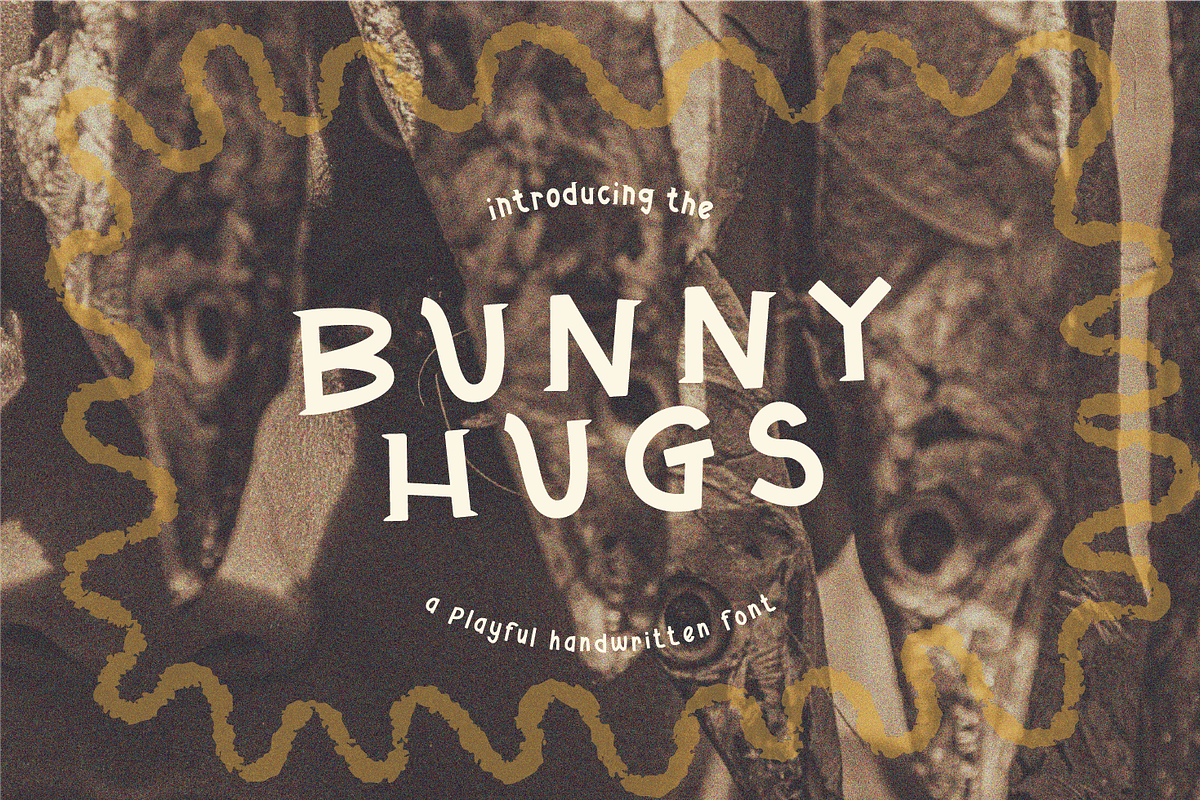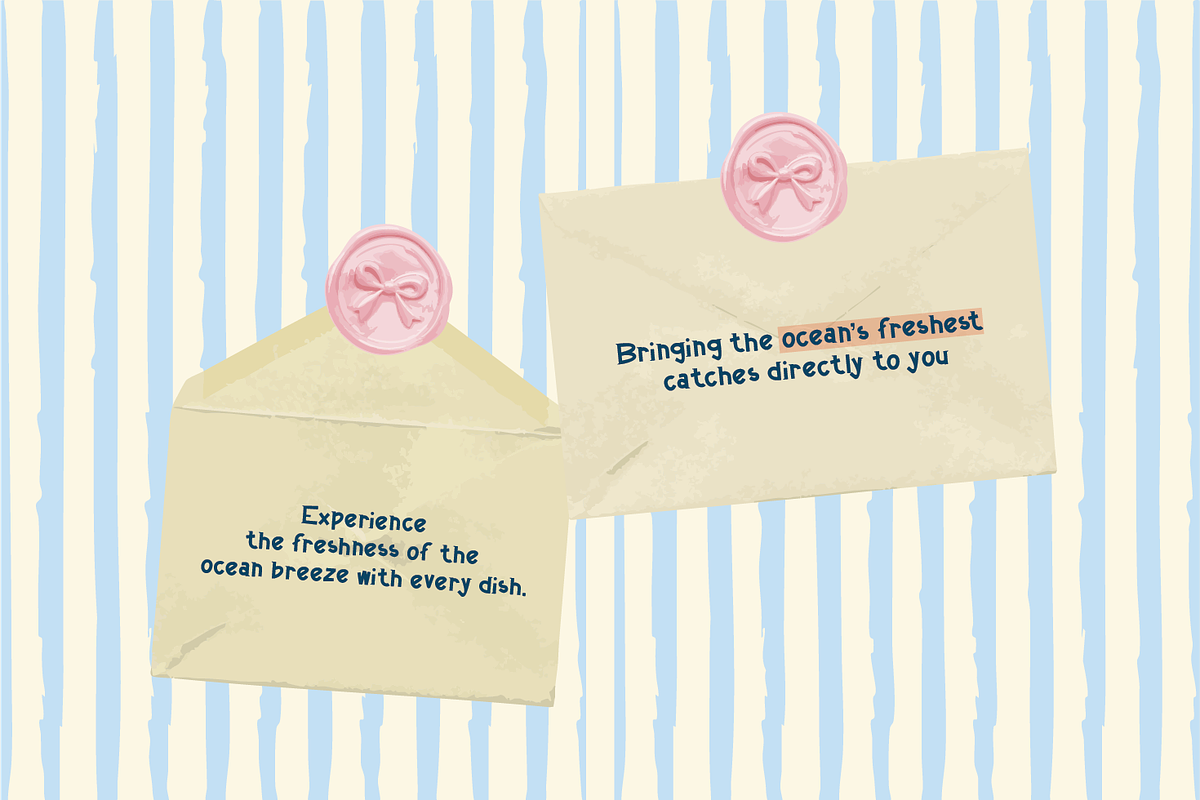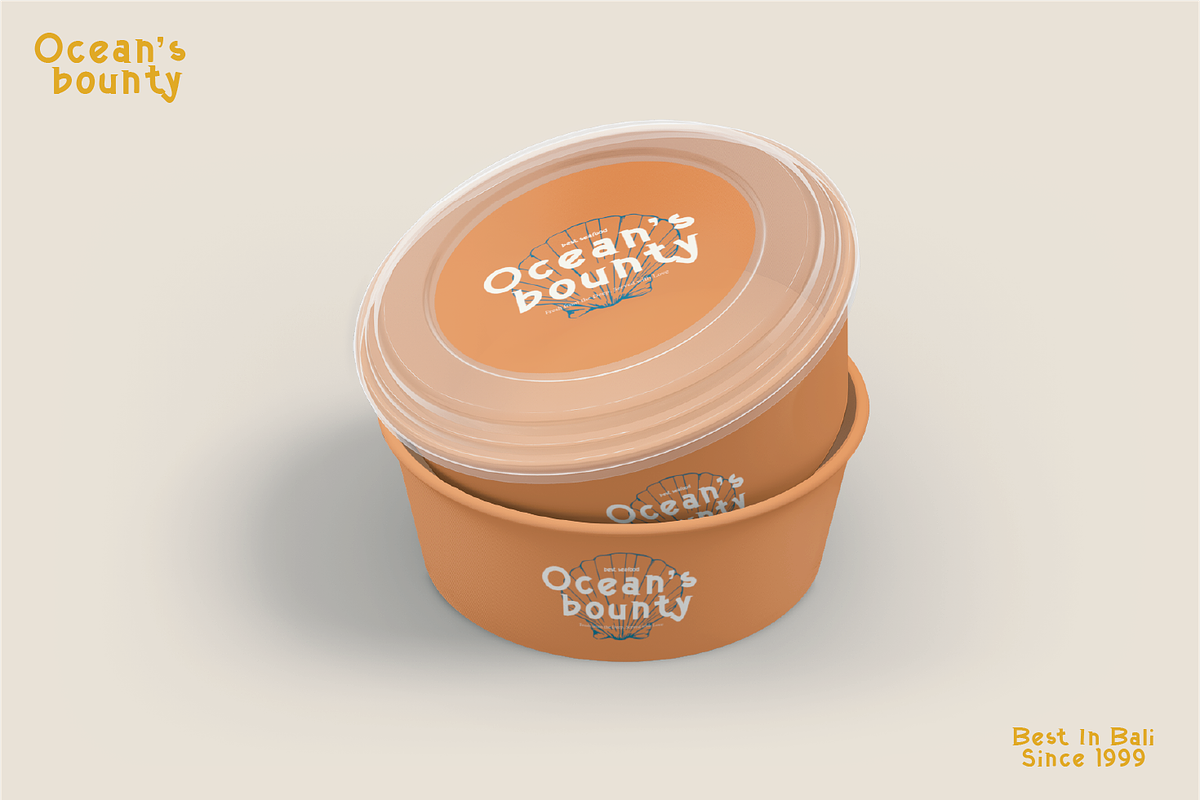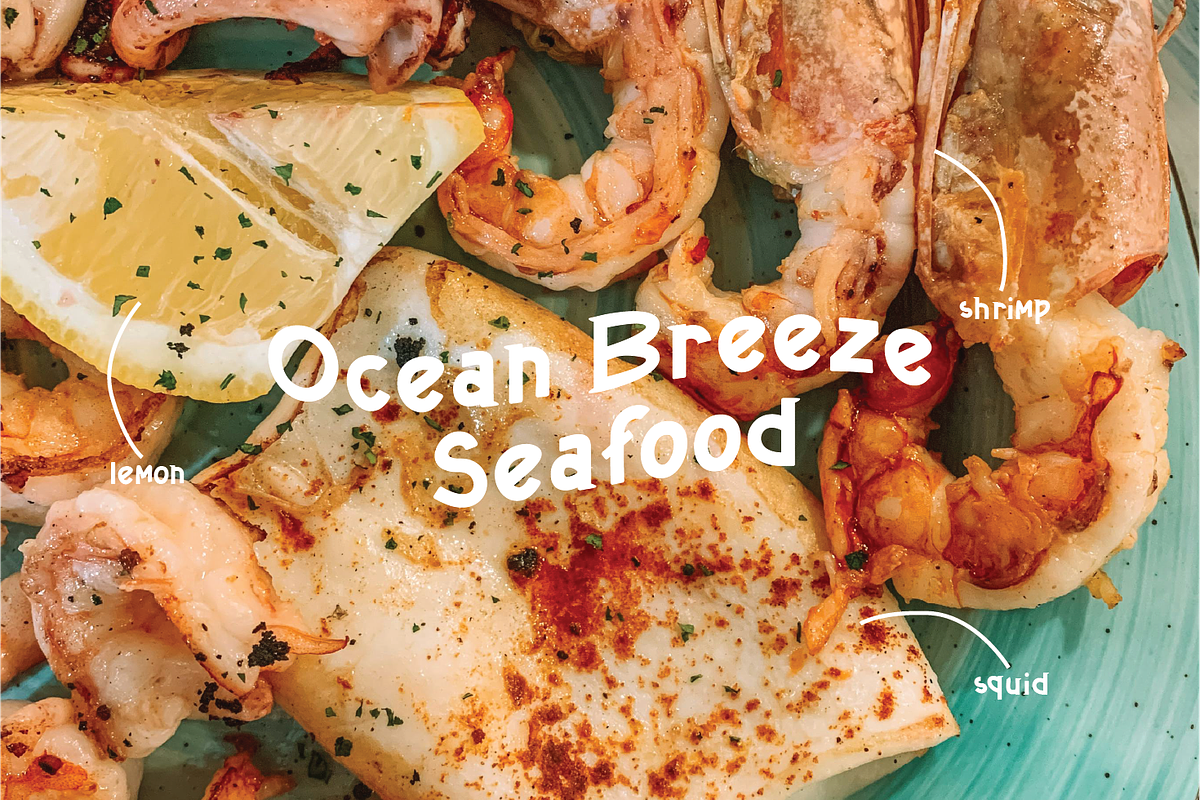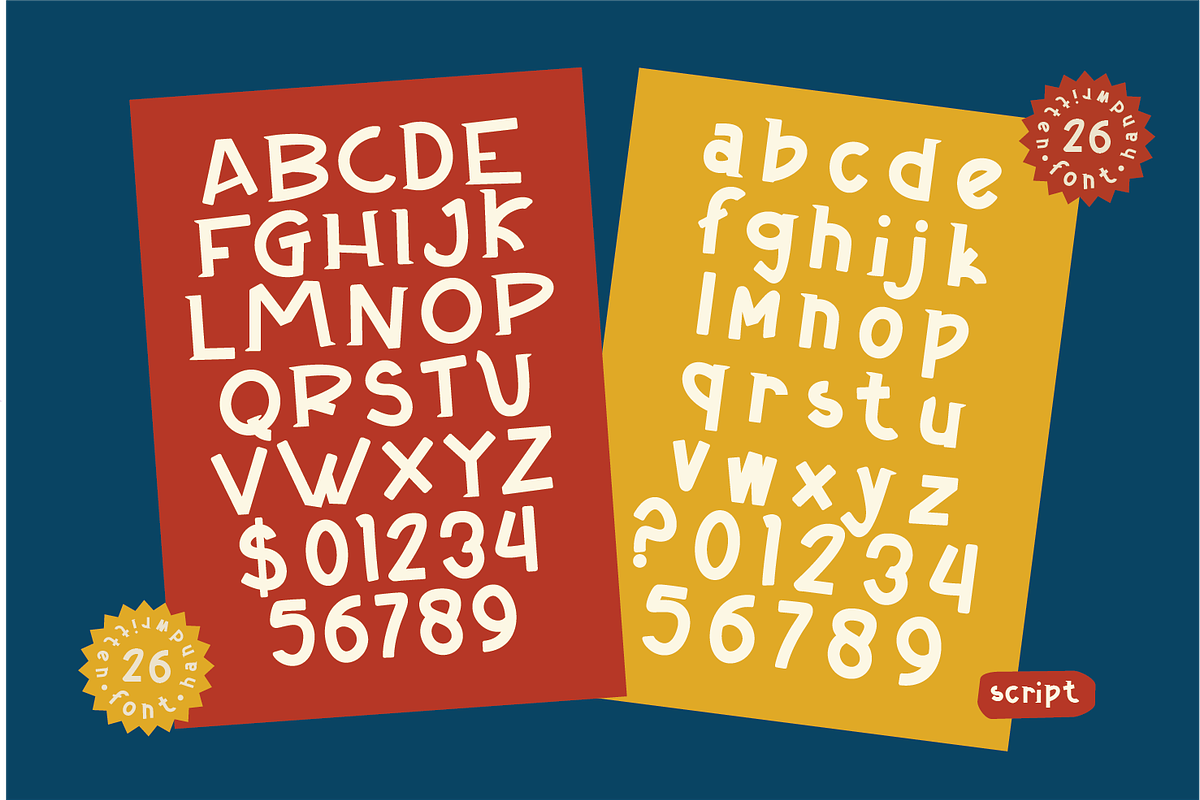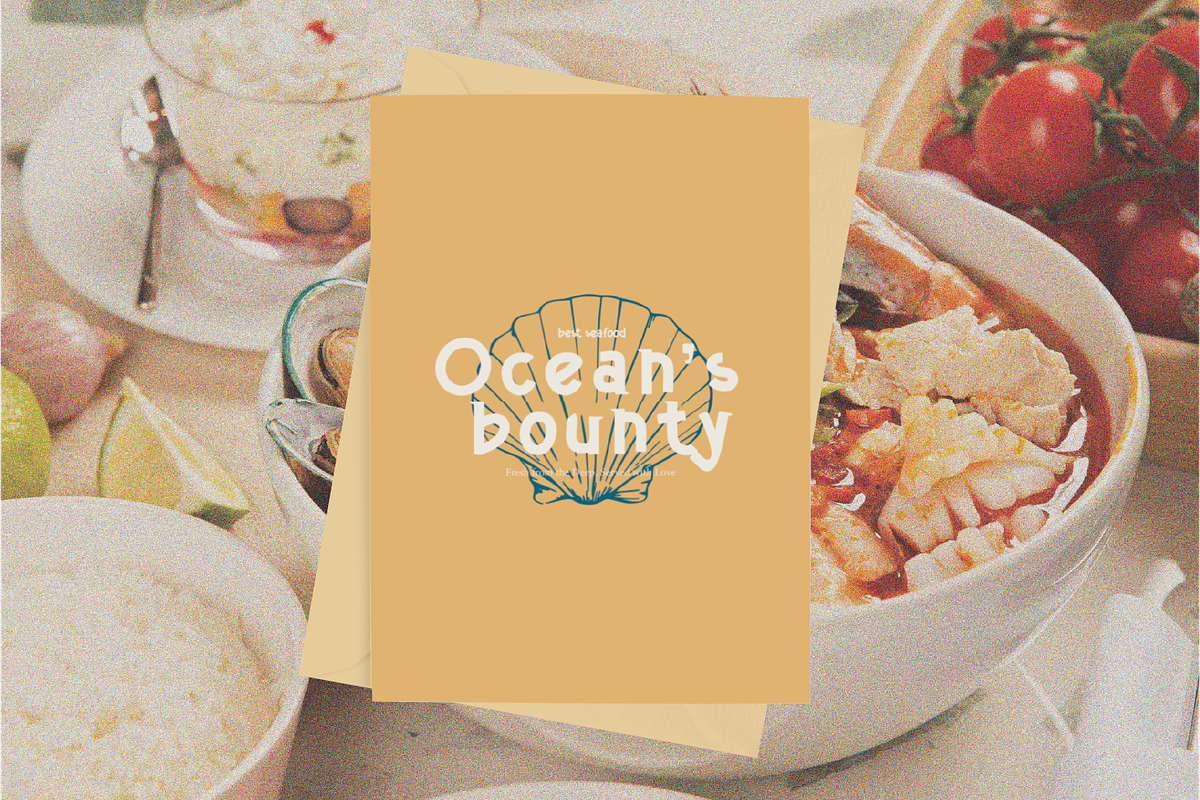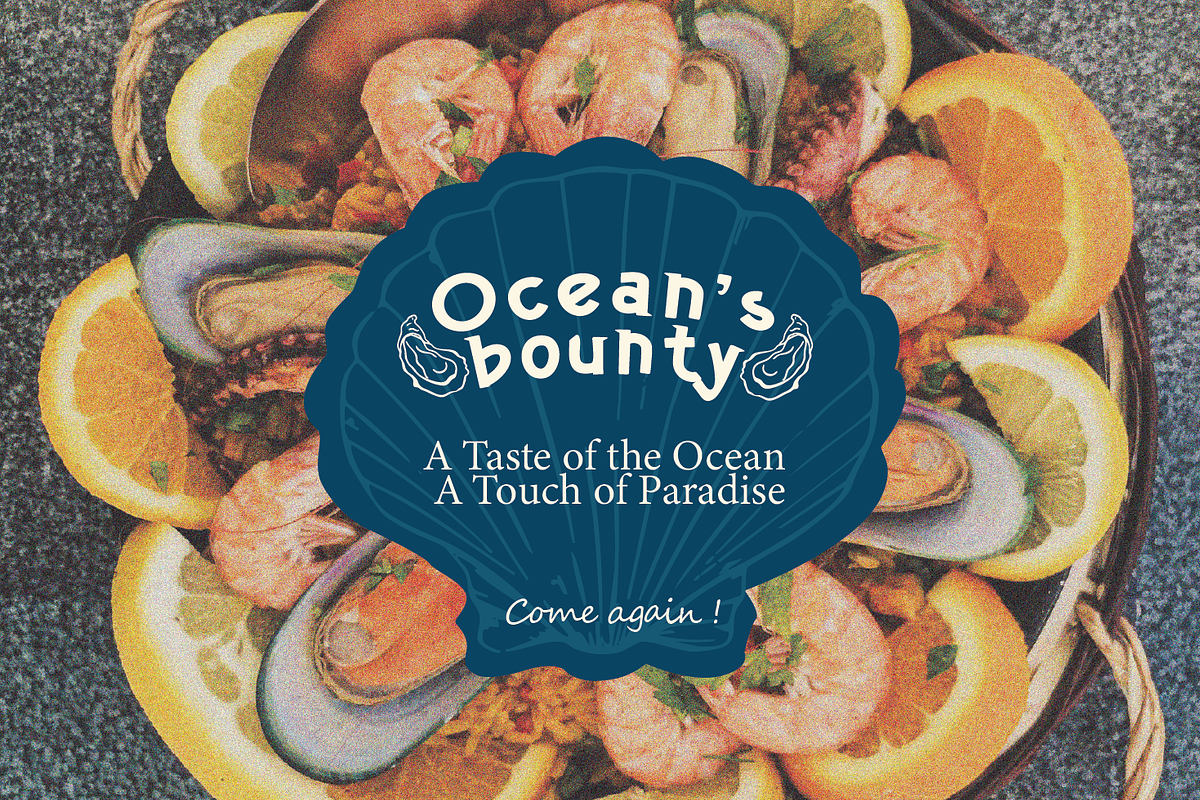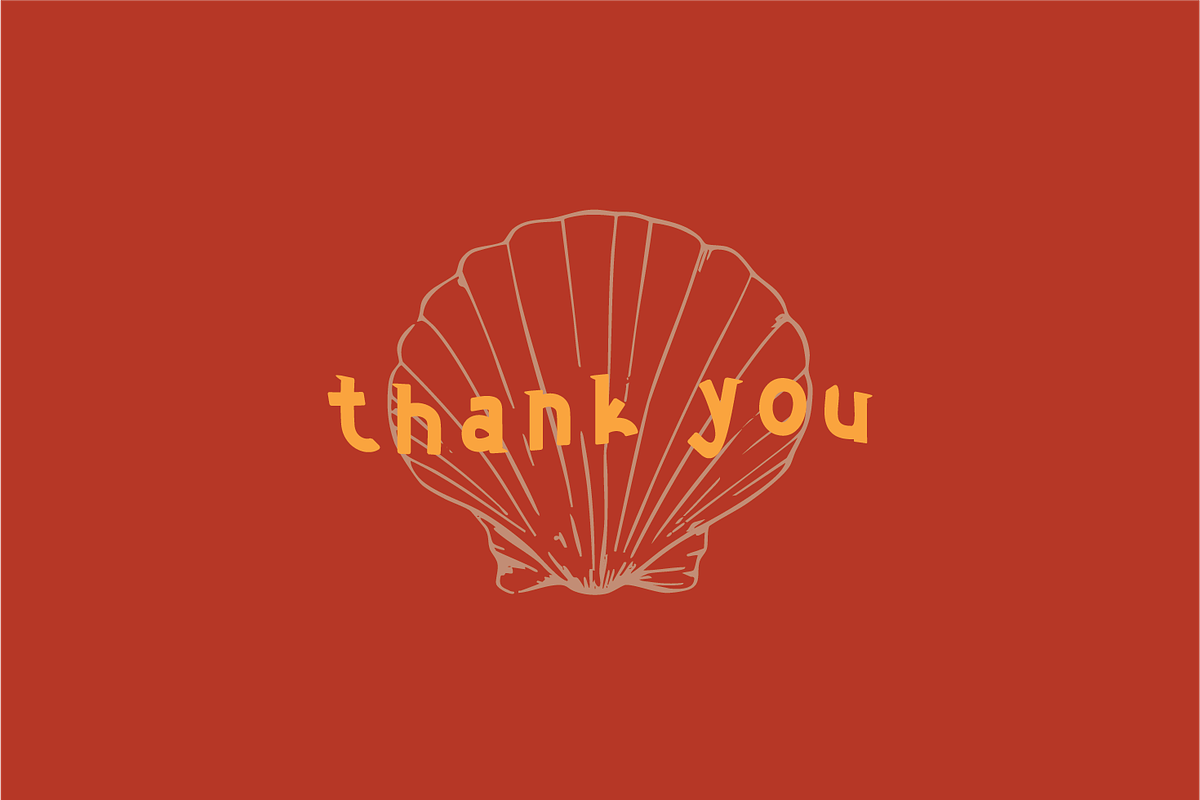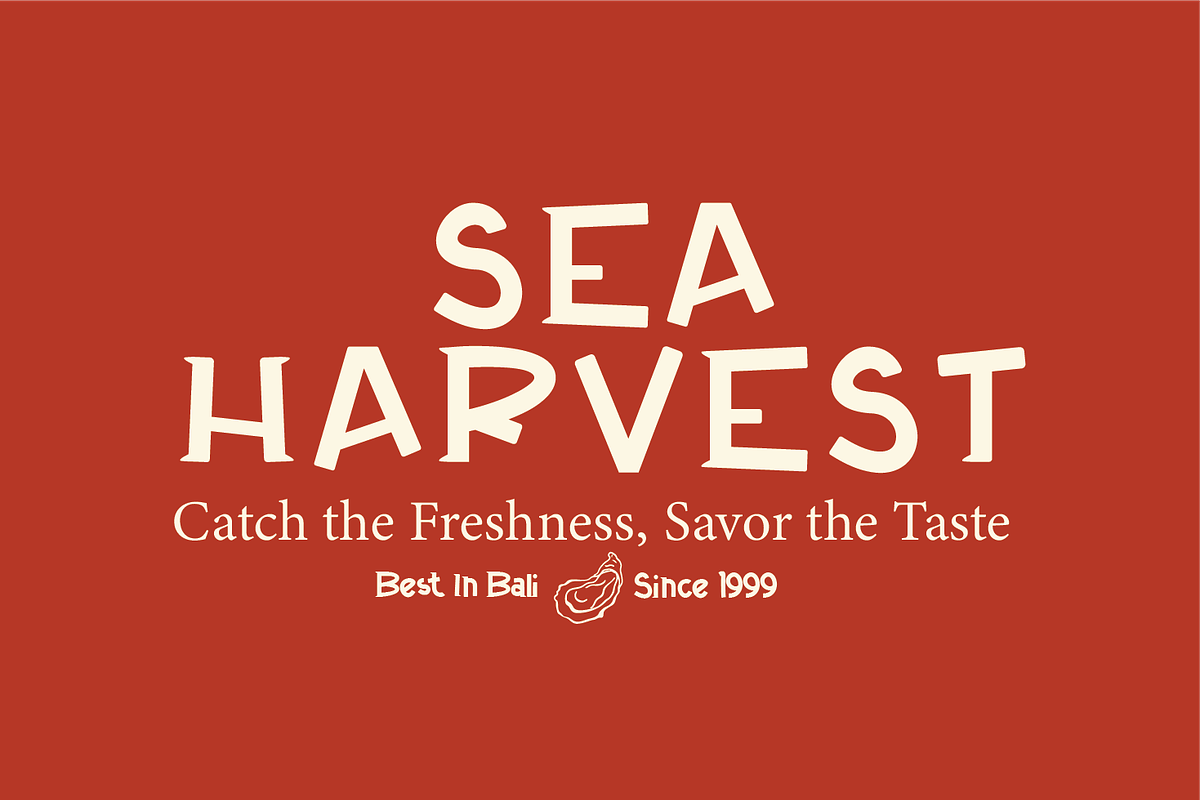
BunnyHugs - Playful Font
BunnyHugs The font features a quirky, playful style with irregularly shaped letters that give it a fun and lighthearted feel. The slightly uneven, rounded edges and varying heights of the letters contribute to a hand-drawn, whimsical look.